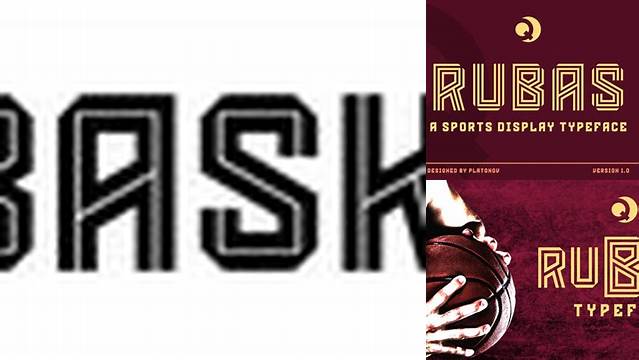
Free Rubas Basketball Font: Find It Now!
Hey guys! Ever wondered what makes a basketball jersey or a team logo pop? Chances are, it's the font! Specifically, a font like Rubas Basketball Font. Finding that perfect font can be a game-changer, whether you're designing a team logo, creating awesome merchandise, or even just sprucing up your personal projects. But let's be real, the term "Rubas Basketball Font Free" can be a bit tricky. So, let's dive deep into what it is, where to find it, and how to use it effectively. Let's explore the world of Rubas Basketball Font Free and other cool options for your designs. You might not always find a completely free version of everything, but there are definitely ways to get creative and achieve that pro look without breaking the bank. We will discuss ways to obtain the desired font style whether through free alternatives, purchasing options or creative workarounds.
Rubas Font: What is it?
Alright, so what exactly is Rubas Font? Simply put, it's a typeface that's often associated with sports designs, particularly basketball. It usually has a bold, athletic, and dynamic feel, making it perfect for jerseys, posters, and anything else where you want to convey energy and strength. When we talk about Rubas Basketball Font Free, we're essentially looking for a font that captures this sporty essence without costing us a dime. These fonts often feature strong lines, sharp angles, and a general sense of motion. They're designed to be eye-catching and easily readable, even from a distance – crucial for things like player names on jerseys or headlines on sports websites. Think about the fonts you see on official NBA merchandise or college basketball team logos. Those fonts often share similar characteristics with the Rubas style. The key is finding a font that embodies that same spirit of athleticism and competition. And that's what we're after when we search for Rubas Basketball Font Free.
Why is Rubas Font Popular in Basketball Designs?
So, why do designers and teams gravitate towards Rubas Font and similar styles for basketball designs? Well, it all comes down to aesthetics and the message they want to send. Rubas Font has a certain visual appeal that just screams "sports." Its boldness and strong lines evoke feelings of power, energy, and competitiveness – all essential elements of the game. Imagine a basketball jersey with a delicate, cursive font. It just wouldn't feel right, would it? The font needs to match the intensity and physicality of the sport. Furthermore, Rubas Font is highly legible. On a basketball jersey, you need to be able to read the player's name and number quickly and easily. Rubas Font, with its clear and distinct characters, ensures that readability, even from a distance or on the move. The font is also versatile. While it's primarily used in sports, it can also be adapted for other designs where you want to convey a sense of strength and dynamism. This versatility makes it a popular choice for branding, advertising, and even personal projects. That's why finding a great Rubas Basketball Font Free can be so valuable – it opens up a world of design possibilities!
Free Rubas Basketball Font: Is It Really Obtainable?
Okay, let's address the big question: Is a truly free Rubas Basketball Font actually obtainable? The answer is a bit complex. While you might not find an exact replica of a professionally designed Rubas Font available for free, there are definitely options that come close. You might find similar fonts available under open-source licenses or as free-for-personal-use fonts. These can be great alternatives if you're working on a non-commercial project or simply want to experiment with different styles. However, it's important to be cautious when downloading fonts from unknown sources. Make sure to download fonts only from reputable websites to avoid the risk of malware or copyright issues. Always check the license agreement before using a font, even if it's advertised as "free." The license will specify how you can use the font, whether it's for personal or commercial purposes. Remember, respecting copyright is crucial, and using a font without the proper license can lead to legal trouble. While the quest for a Rubas Basketball Font Free might require some digging, it's definitely possible to find excellent alternatives that fit your needs and budget.
Exploring Alternatives to Rubas Font
Since finding an exact Rubas Basketball Font Free might be a challenge, let's explore some awesome alternatives that capture a similar vibe. Think about fonts like Bebas Neue, Oswald, and Montserrat. These fonts are often available for free (or at least have free versions) and share many of the characteristics of Rubas Font – they're bold, modern, and highly legible. Bebas Neue, for example, is a sans-serif font that's incredibly popular for headlines and posters. Its clean lines and tall, narrow letters make it a great choice for sports-related designs. Oswald is another excellent option. It's a slightly more rounded sans-serif font that still maintains a strong and athletic feel. Montserrat is a versatile font that comes in a variety of weights, allowing you to create different effects. Its geometric design and clear readability make it suitable for a wide range of projects. The key is to experiment with different fonts and see what works best for your specific design. Don't be afraid to mix and match fonts to create a unique and eye-catching look. With a little creativity, you can achieve a similar effect to Rubas Font without spending a fortune.
Designing a Basketball Logo with a Free Font
So, you've found a free basketball-style font that you love. Awesome! Now, let's talk about how to use it to design a killer basketball logo. The first step is to brainstorm ideas. Think about the team's name, mascot, and overall brand identity. What kind of message do you want to convey with your logo? Do you want it to be aggressive and intimidating, or more friendly and approachable? Once you have a clear idea of what you want, start sketching out different logo concepts. Experiment with different font styles, colors, and graphic elements. Don't be afraid to try new things and push your creative boundaries. When choosing a font, make sure it's legible and easily recognizable, even at small sizes. Consider using a bold font to convey strength and power, but also make sure it's not too overwhelming. Use colors that are associated with the team's brand and that create a visually appealing contrast. Remember, a great logo is more than just a pretty font. It's a symbol that represents the team's identity and values. With a little creativity and attention to detail, you can design a logo that your team will be proud to wear.
Creating Basketball Jerseys with Free Fonts
Designing basketball jerseys with free fonts can be a fun and rewarding project. The key is to choose a font that's not only stylish but also highly legible, even from a distance. When selecting a font for the player's name and number, consider using a bold sans-serif font that's easy to read. Avoid fonts that are too decorative or have thin lines, as they may be difficult to see on the court. Think about the overall design of the jersey and how the font complements the other elements. Use colors that contrast well with the jersey color to ensure maximum visibility. Consider the placement of the name and number on the jersey. Typically, the player's name is placed above the number on the back of the jersey, and the number is also displayed on the front. Make sure the font size is appropriate for the jersey size and that the name and number are centered and aligned properly. Using a design software like Adobe Illustrator or Inkscape can help you create professional-looking jerseys with precise measurements and layouts. Remember, the jersey is more than just a piece of clothing. It's a symbol of team unity and pride. With a well-designed jersey featuring a great font, your team will look and feel like champions.
Matching Your Font with the Team's Brand Identity
Alright guys, that's a wrap on our deep dive into the world of Rubas Basketball Font Free! Hopefully, you've gained a solid understanding of what Rubas Font is, why it's so popular in basketball designs, and where to find awesome alternatives – even if a truly free version is a bit elusive. Remember, designing a killer basketball logo, jersey, or poster is all about creativity, attention to detail, and understanding the message you want to send. So, don't be afraid to experiment with different fonts, colors, and design elements until you find the perfect combination. And most importantly, have fun with it! Whether you're designing for a professional team or just creating something for your own enjoyment, the right font can make all the difference. Keep exploring, keep creating, and keep pushing those design boundaries. And who knows, maybe you'll be the one designing the next iconic sports font that everyone's talking about!